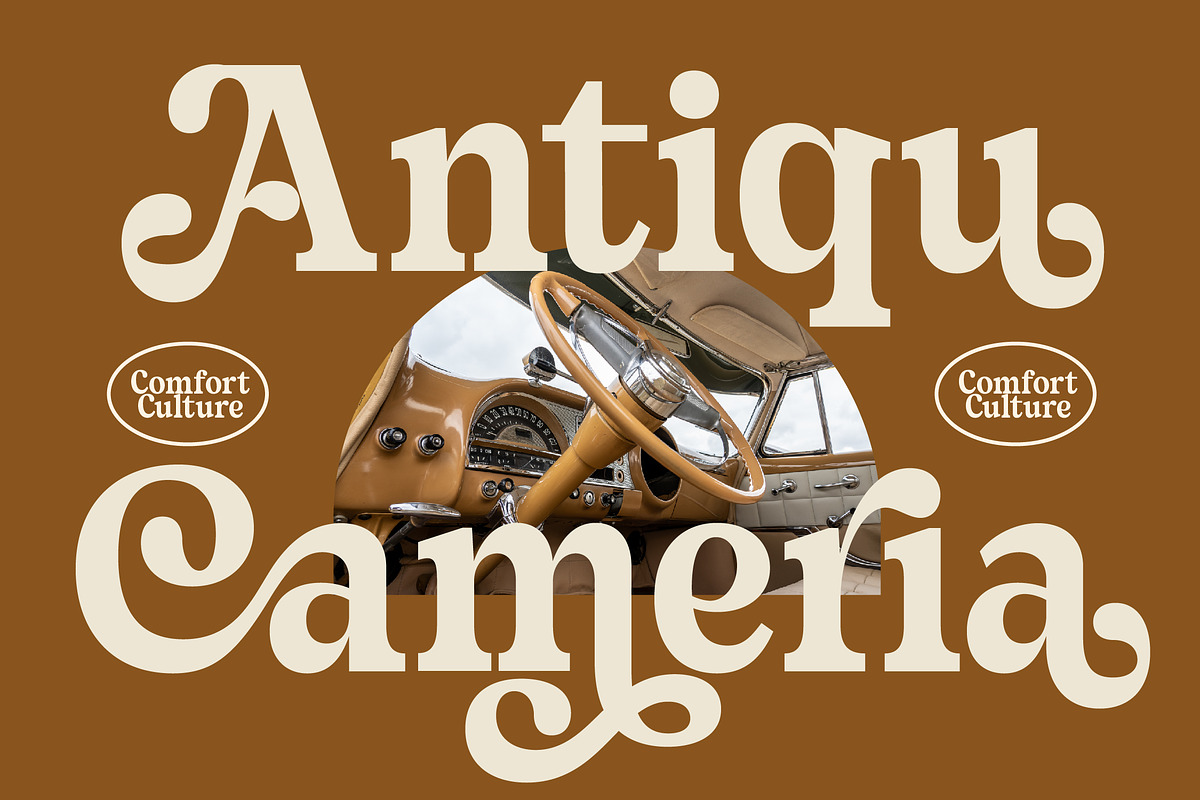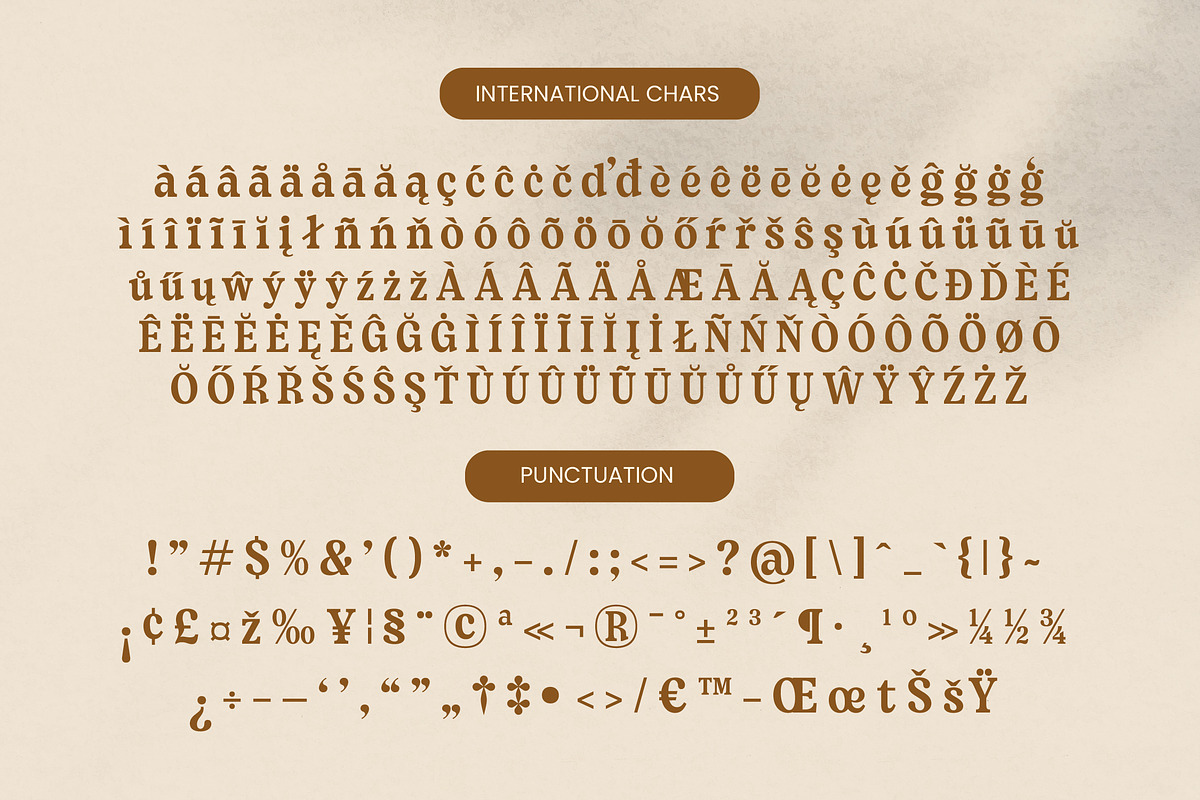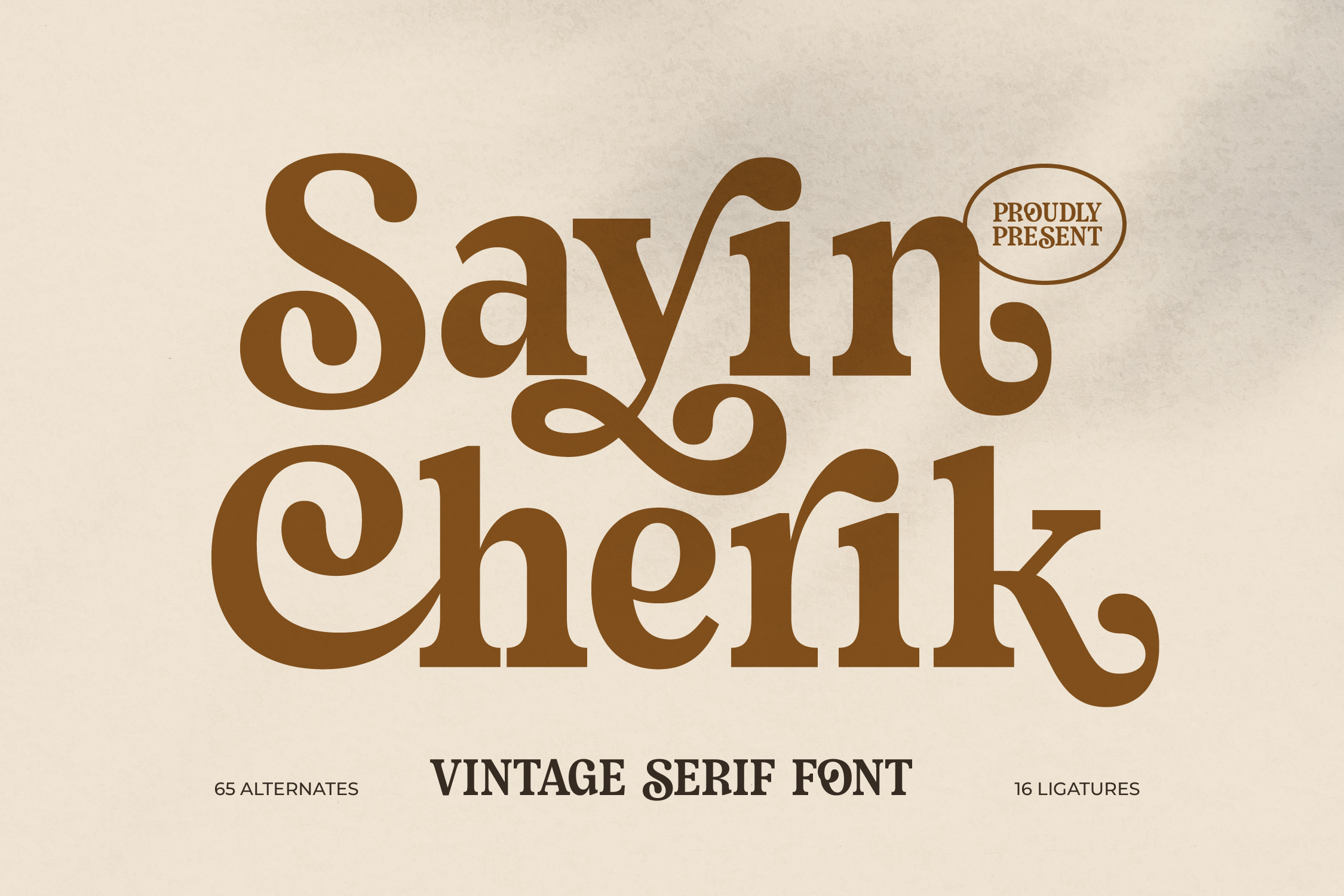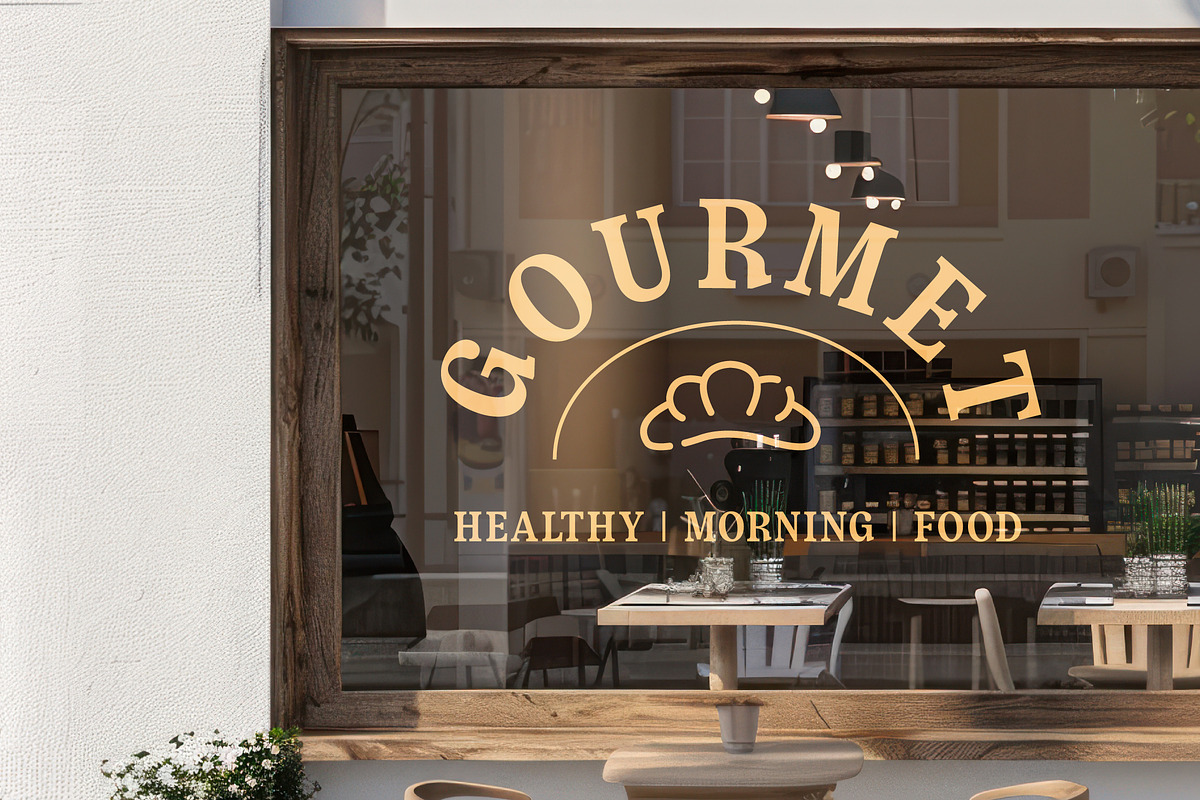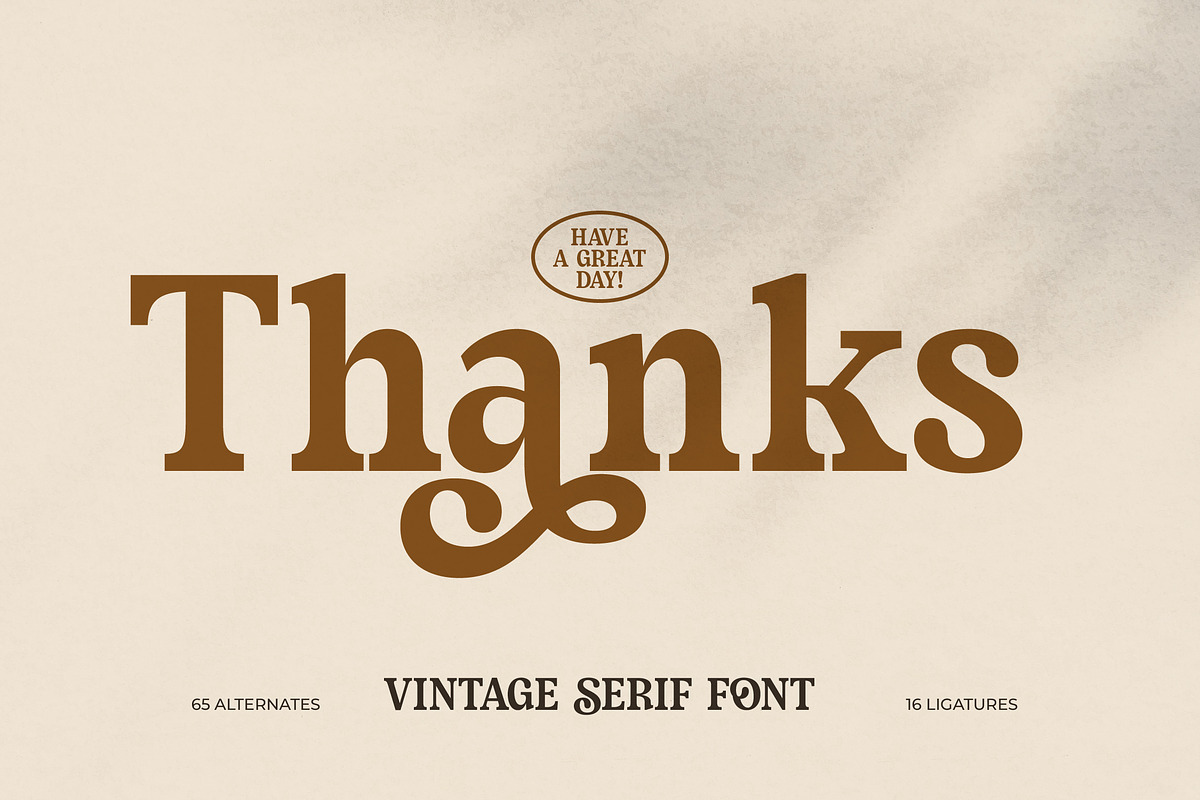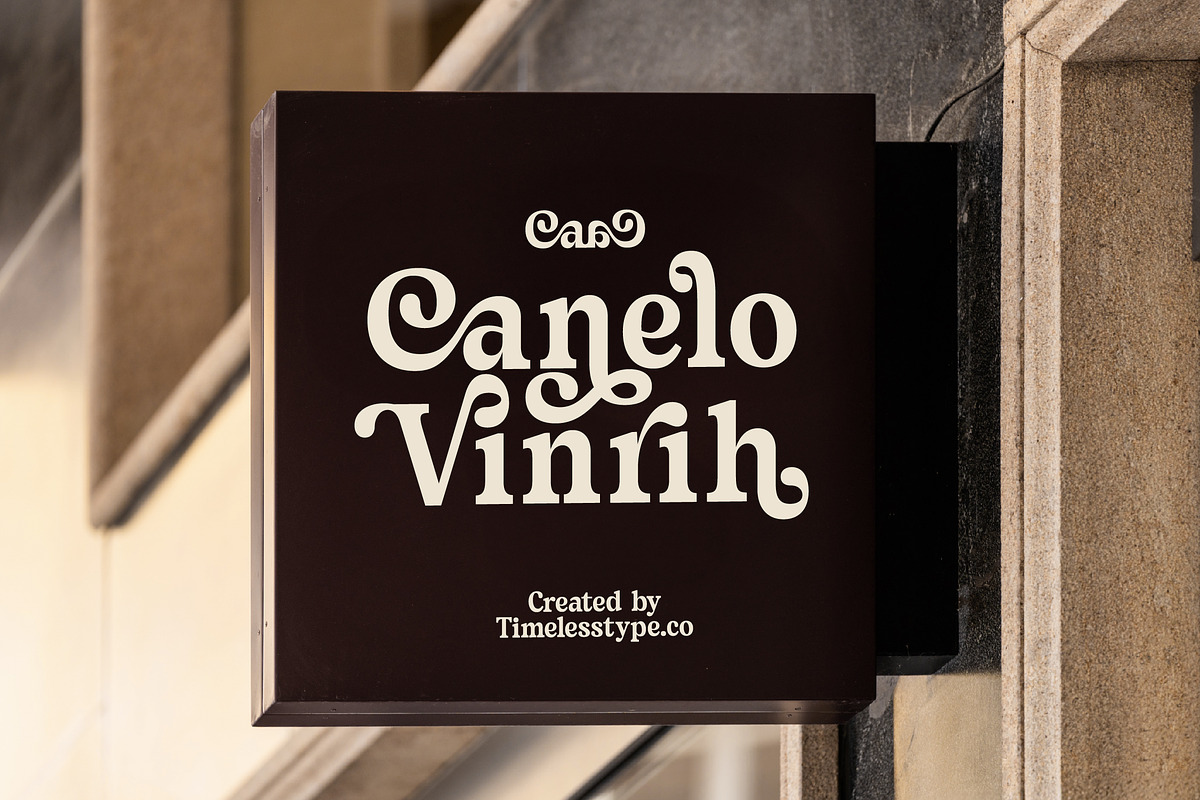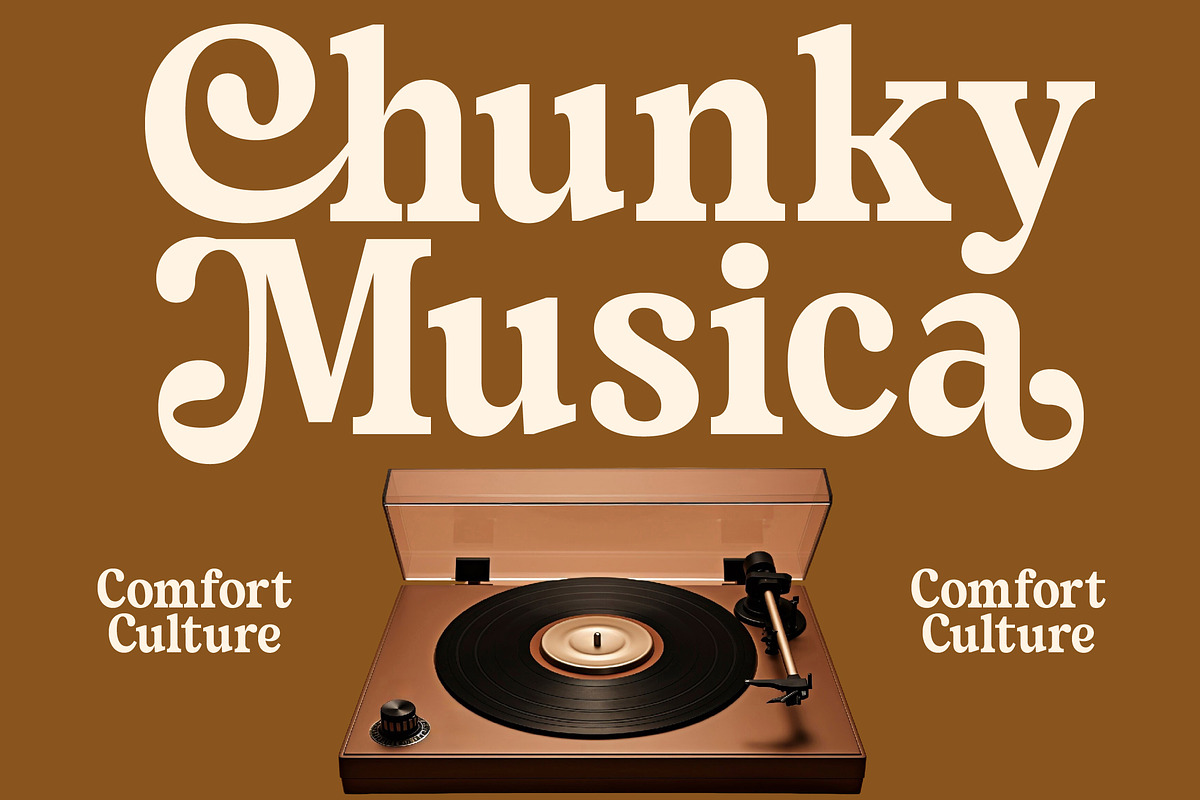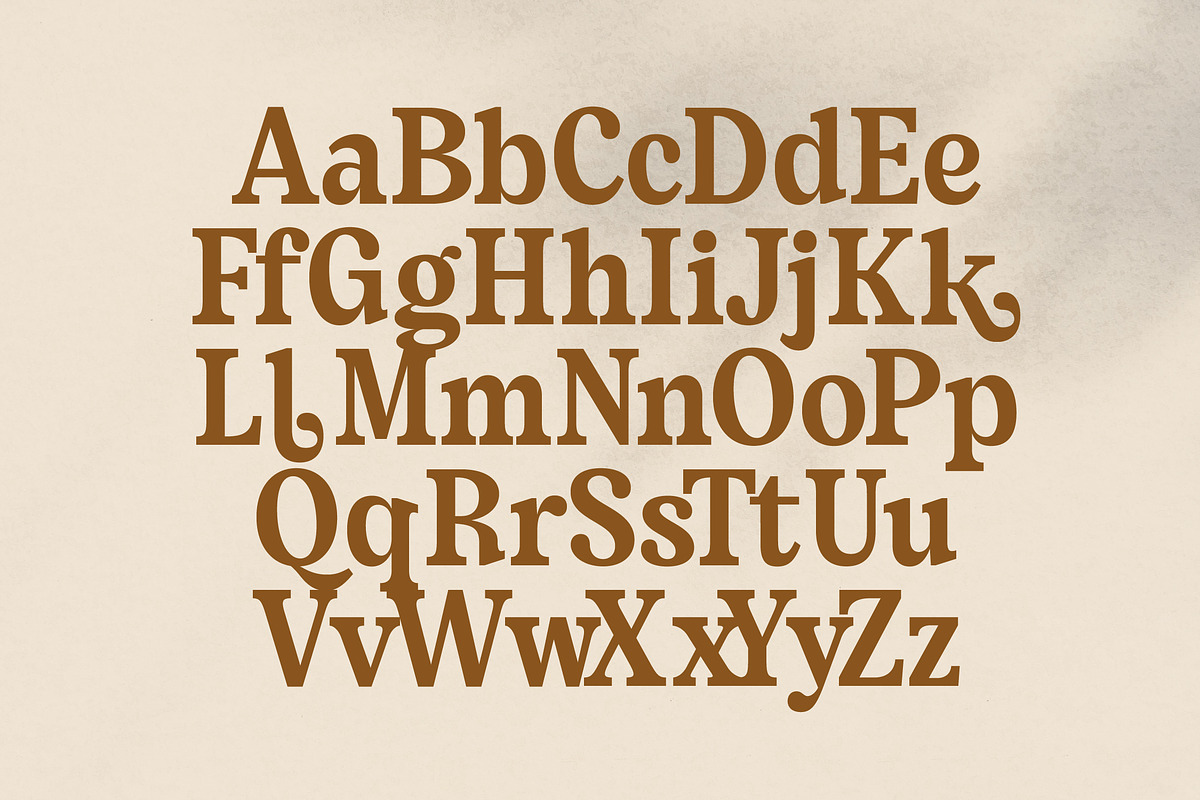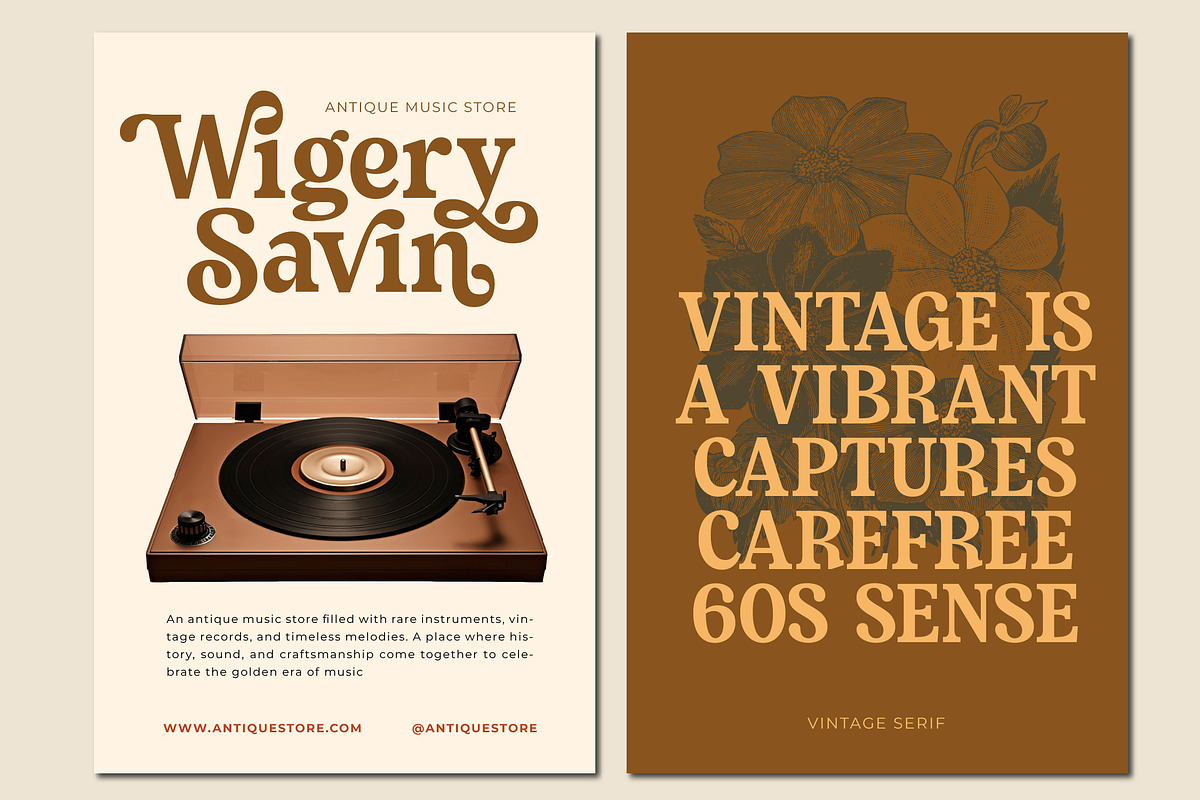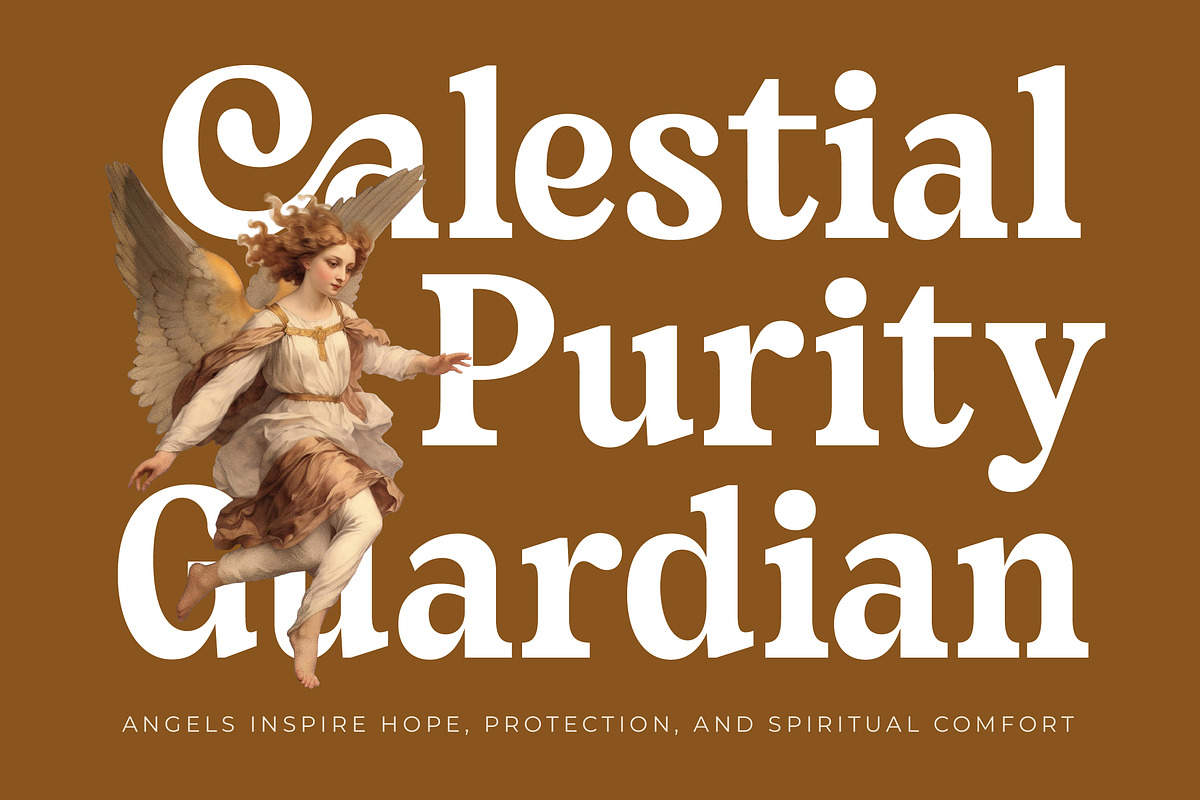
Sayin Cherik Vintage Serif Font
Experience the nostalgic allure of Sayin Cherik, a typeface that dances between timeless elegance and modern sophistication. It brings a unique rhythm to your canvas, turning every word into a visual symphony of curves and character.
Drawing deep inspiration from the psychedelic energy of the 1970s and the refined class of classical Roman lettering, this font captures a bygone era of craftsmanship. It evokes the feeling of hand-painted signage and high-end vintage record covers, blending organic flow with structured serifs.
This modern serif display is designed for maximum branding impact, offering a luxury typography feel that commands attention in any layout. Its high-contrast serif design ensures a striking presence, making it an essential editorial font for those who refuse to blend into the background.
Perfectly aligned with the current modern serif trend, this typeface responds to the growing demand for character-driven typography in a digital-first world. As designers move toward more expressive and soulful aesthetics, Sayin Cherik stands out among editorial display fonts as a versatile powerhouse.
Elevate your next logo design or high-end branding project with a touch of vintage flair that transitions seamlessly into packaging and fashion marketing. Whether you are crafting a boutique wedding invitation or a bold editorial spread, this font provides the personality needed to tell a compelling story.
Unlock endless creative possibilities with over 65 unique alternates and 16 specialized ligatures that allow for custom-lettered looks. The font also includes expressive swashes and comprehensive multilingual support with international characters, ensuring your message reaches a global audience with consistent style.
- Ligature 16 Alternate 65